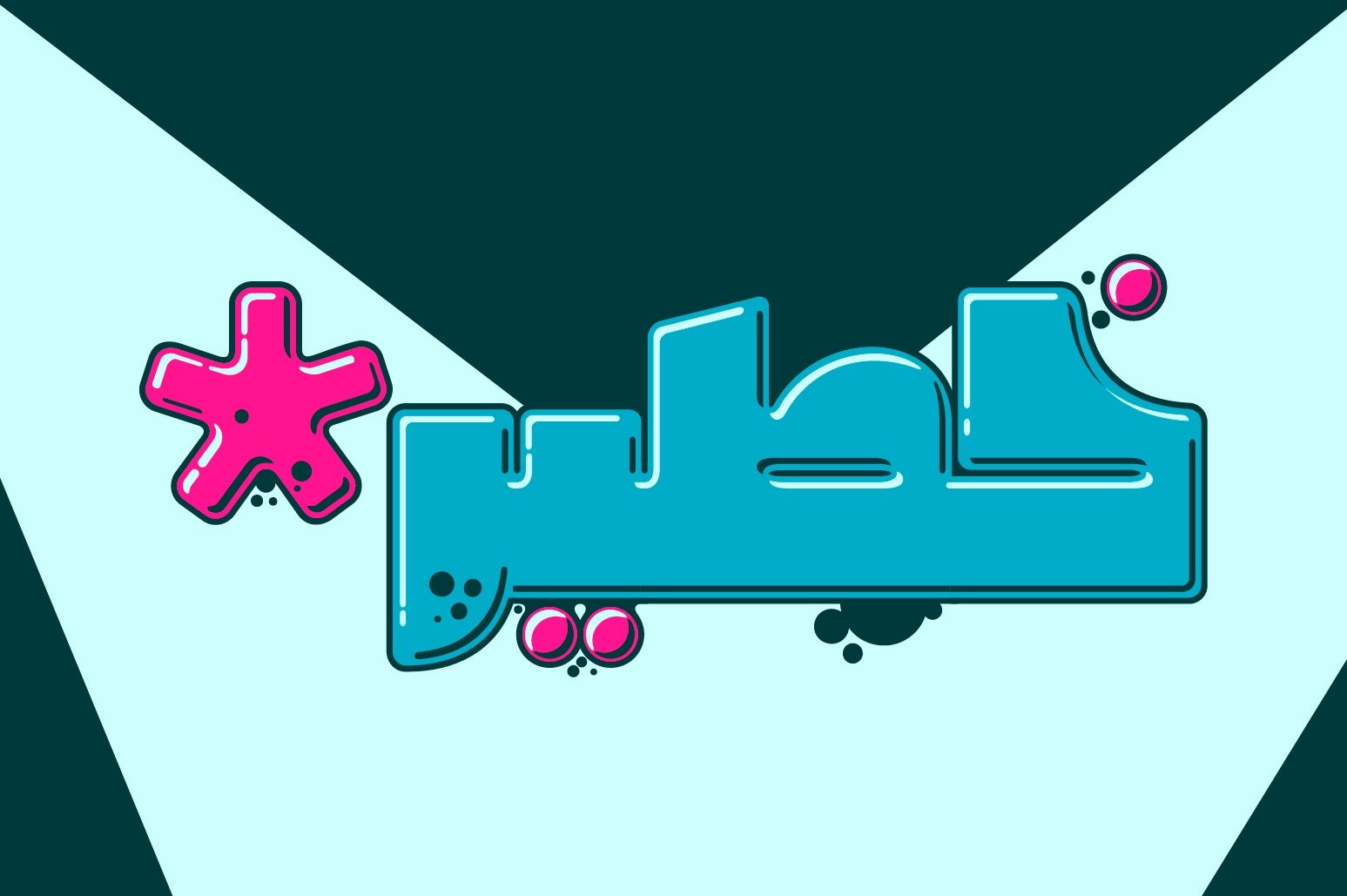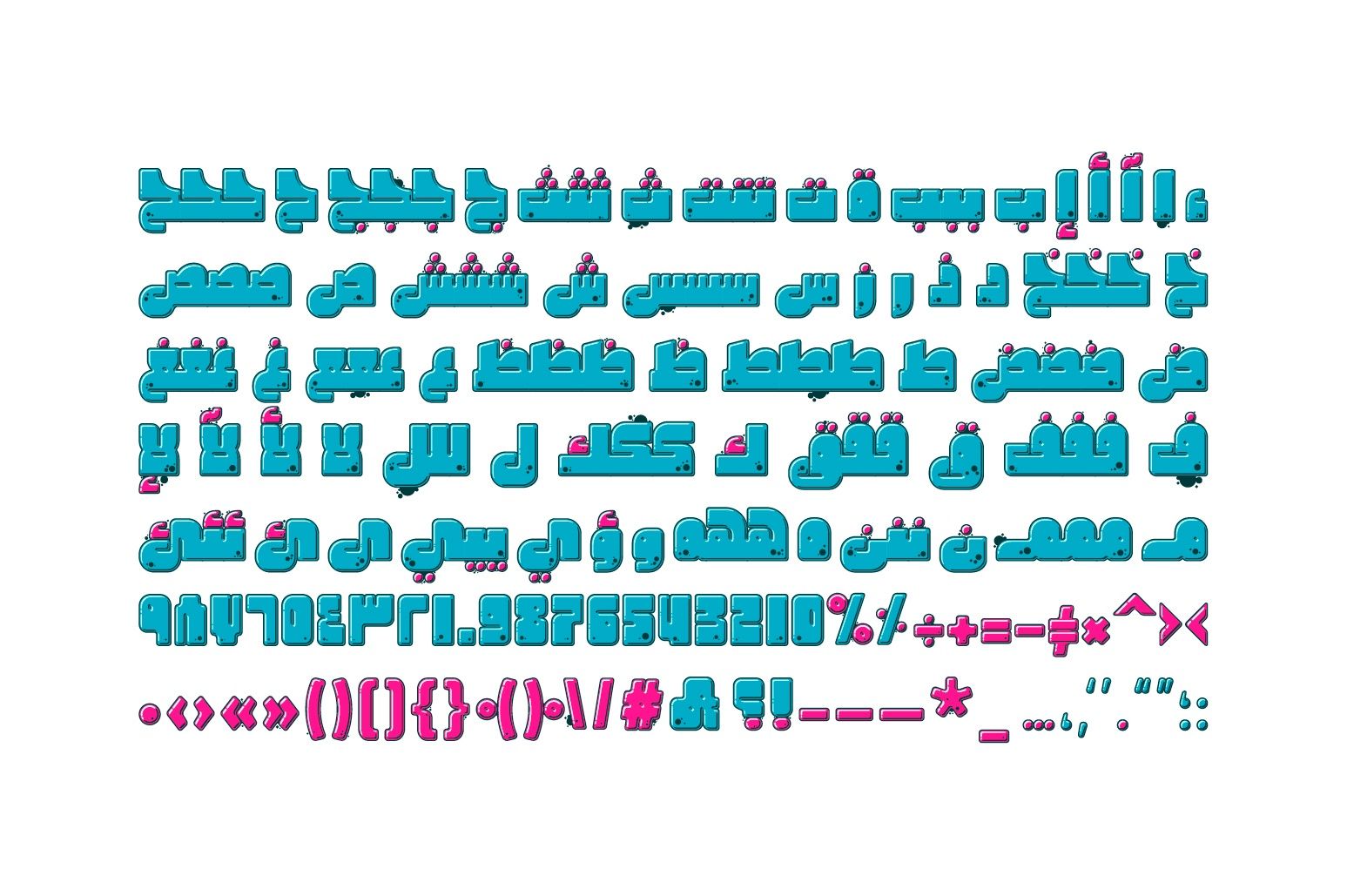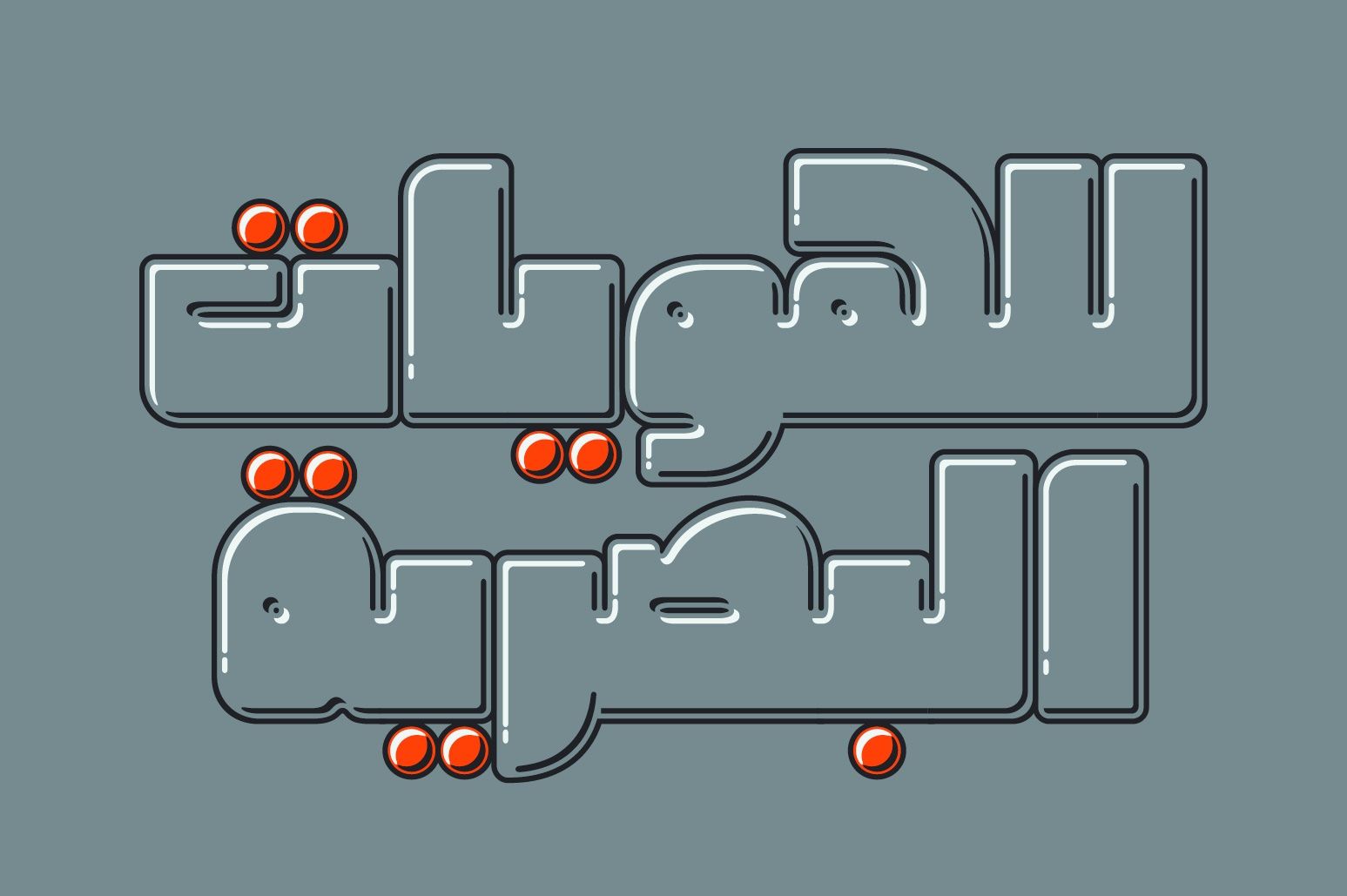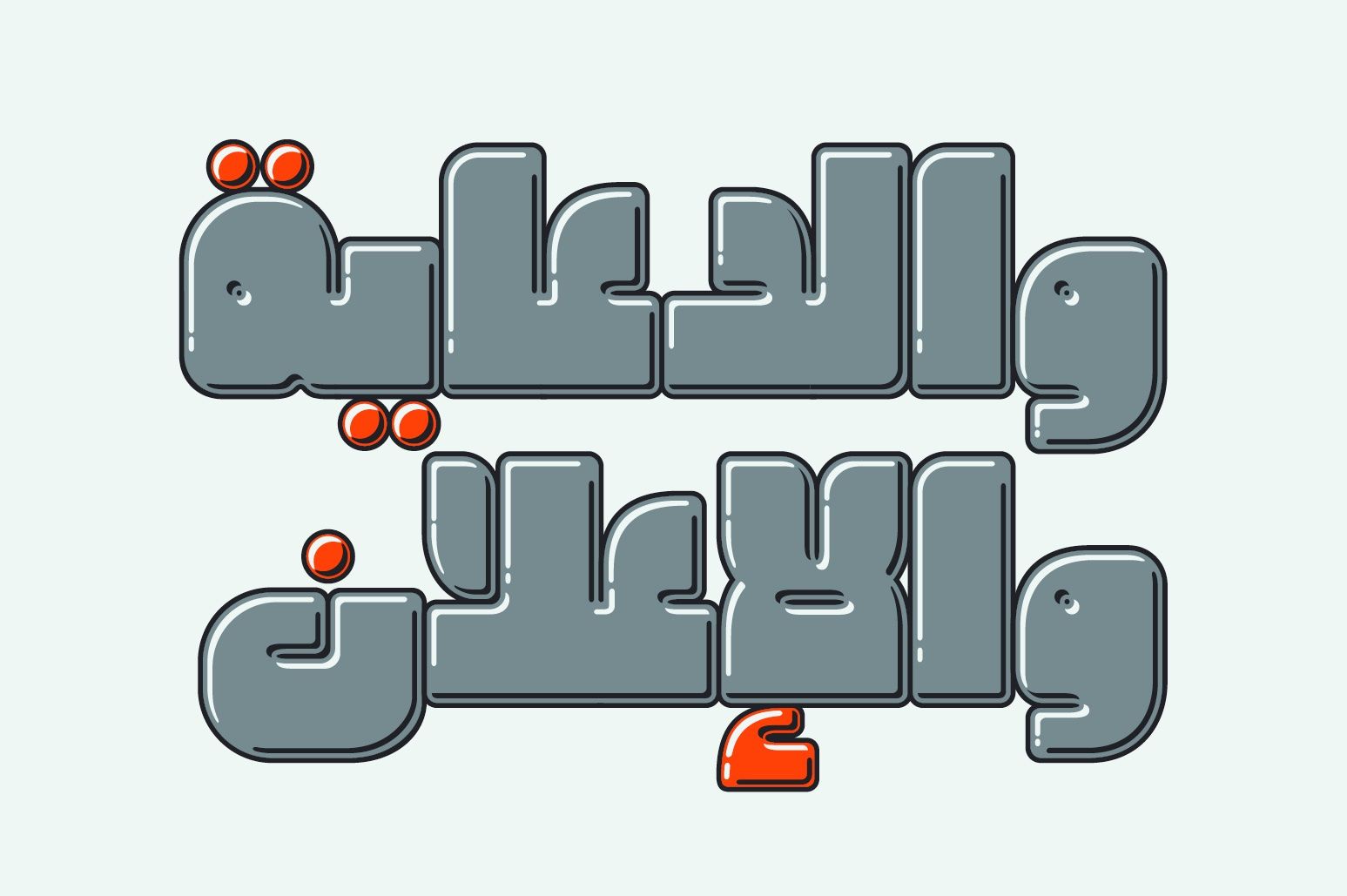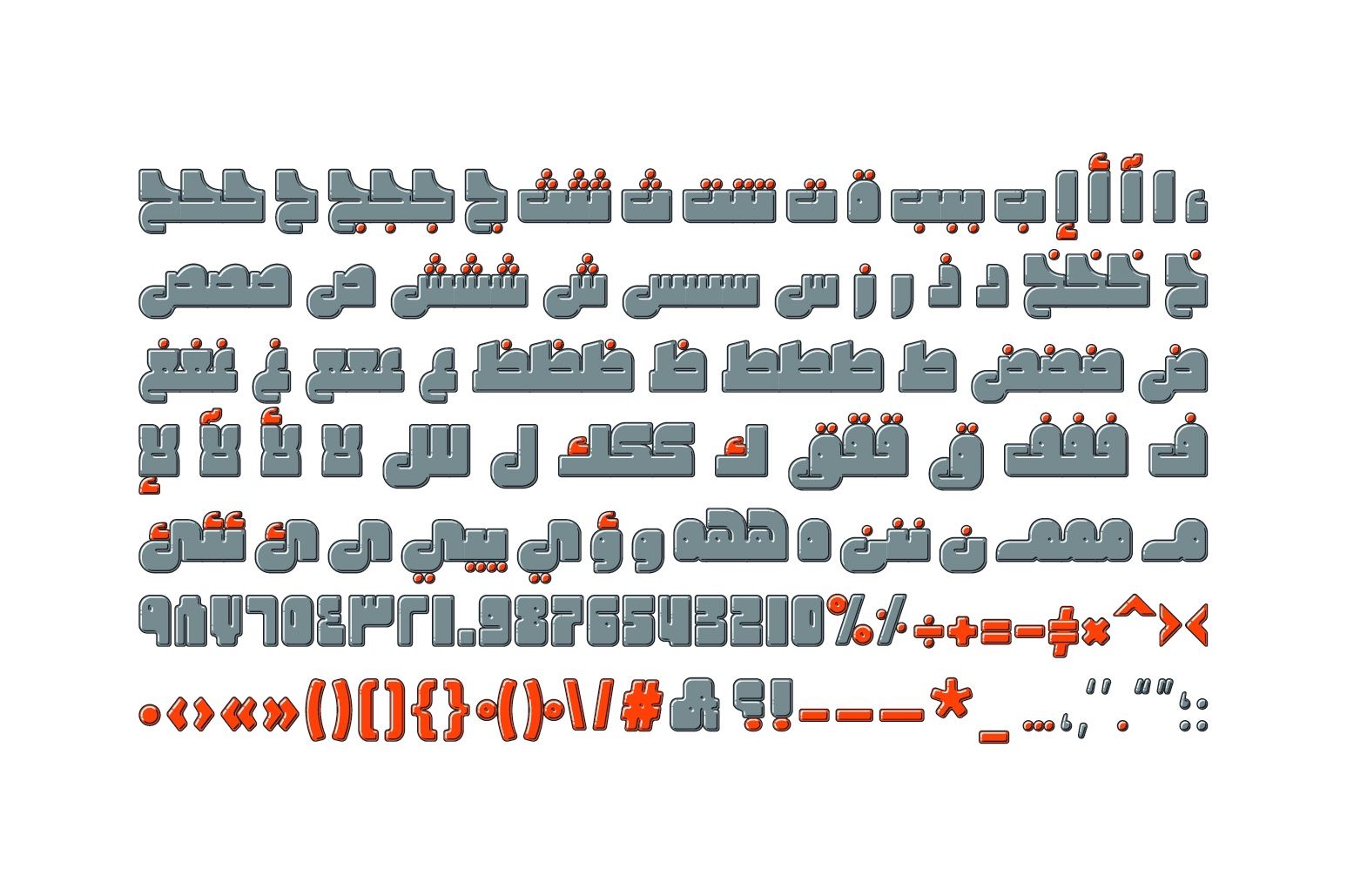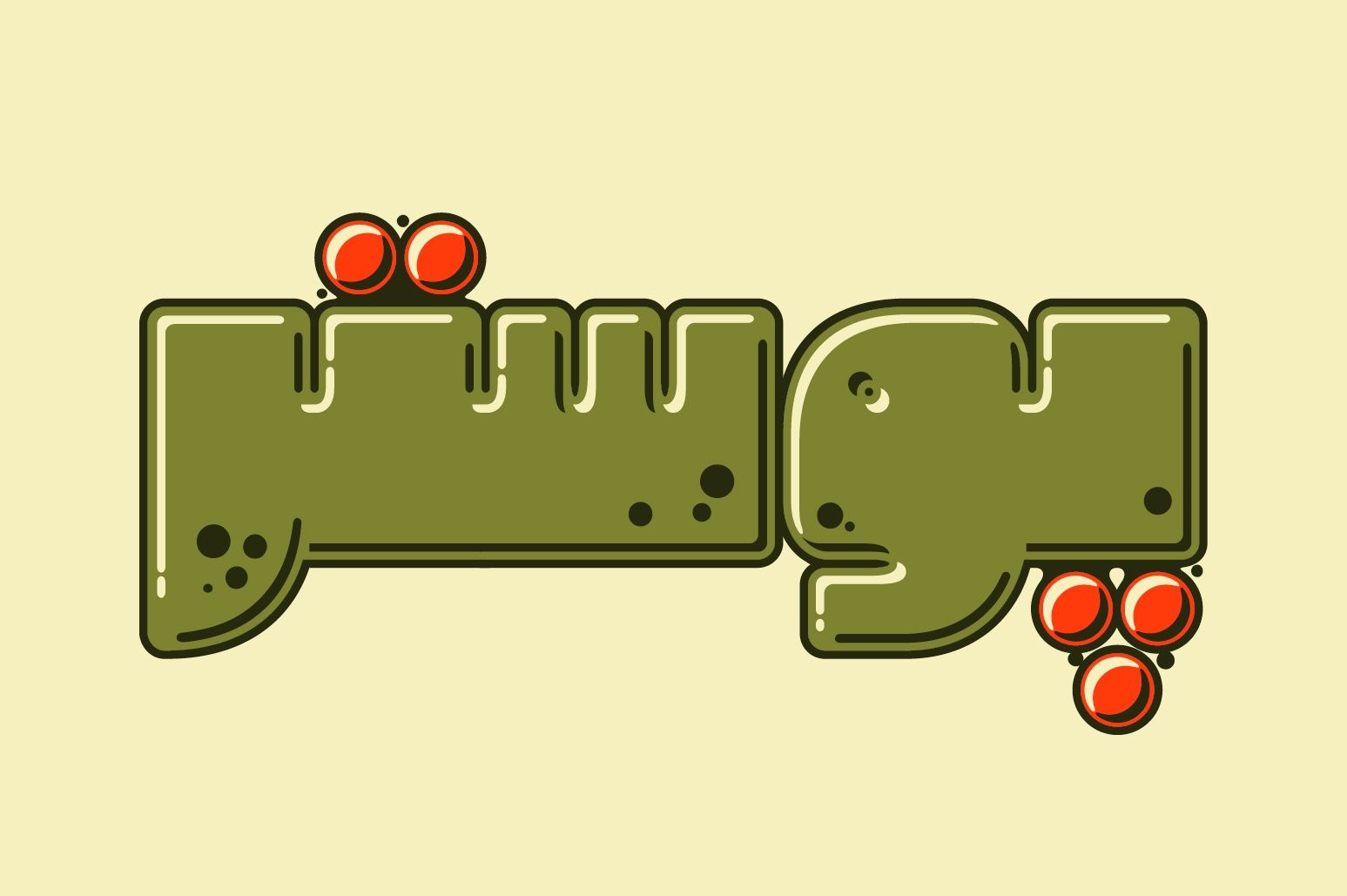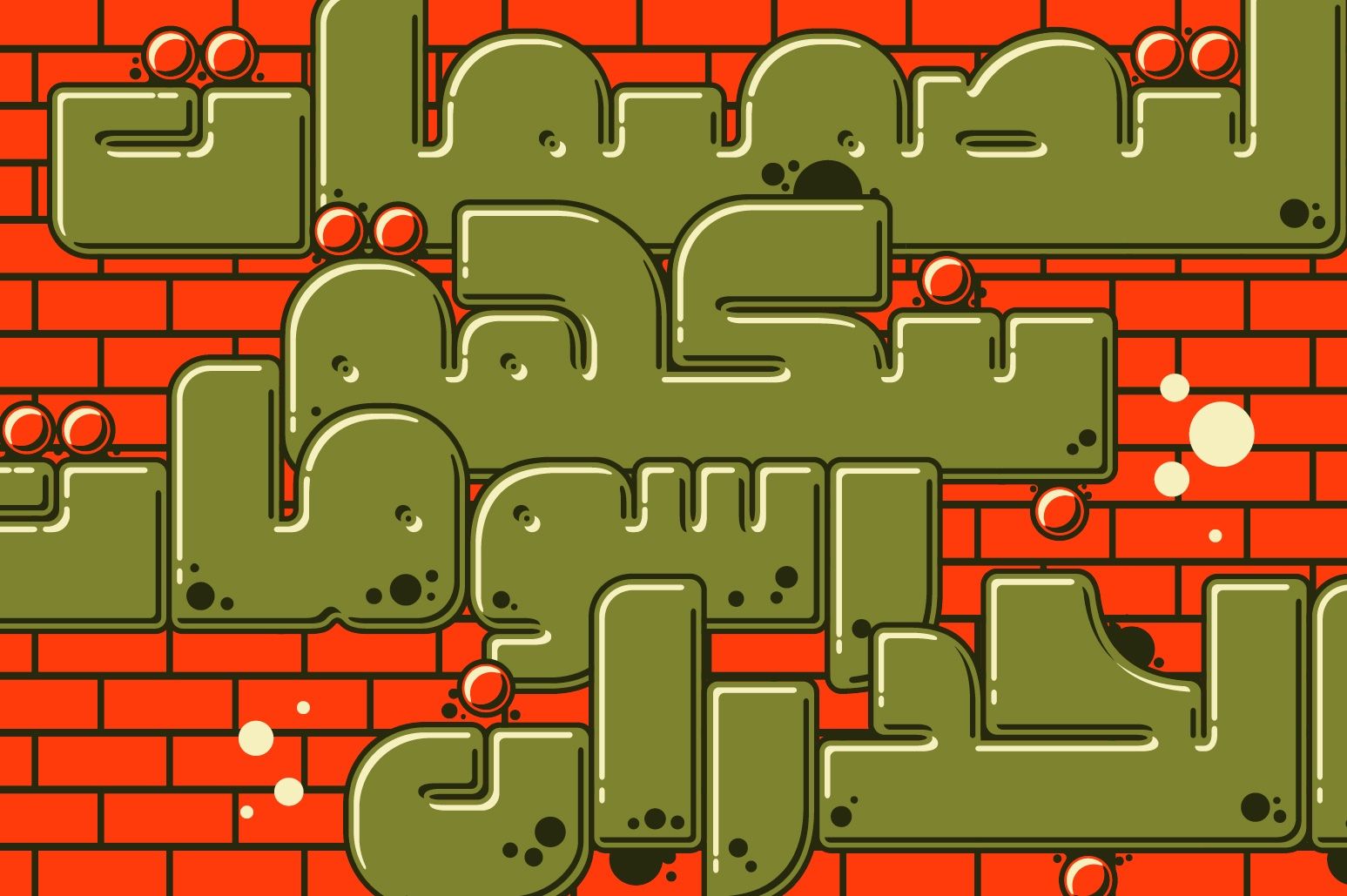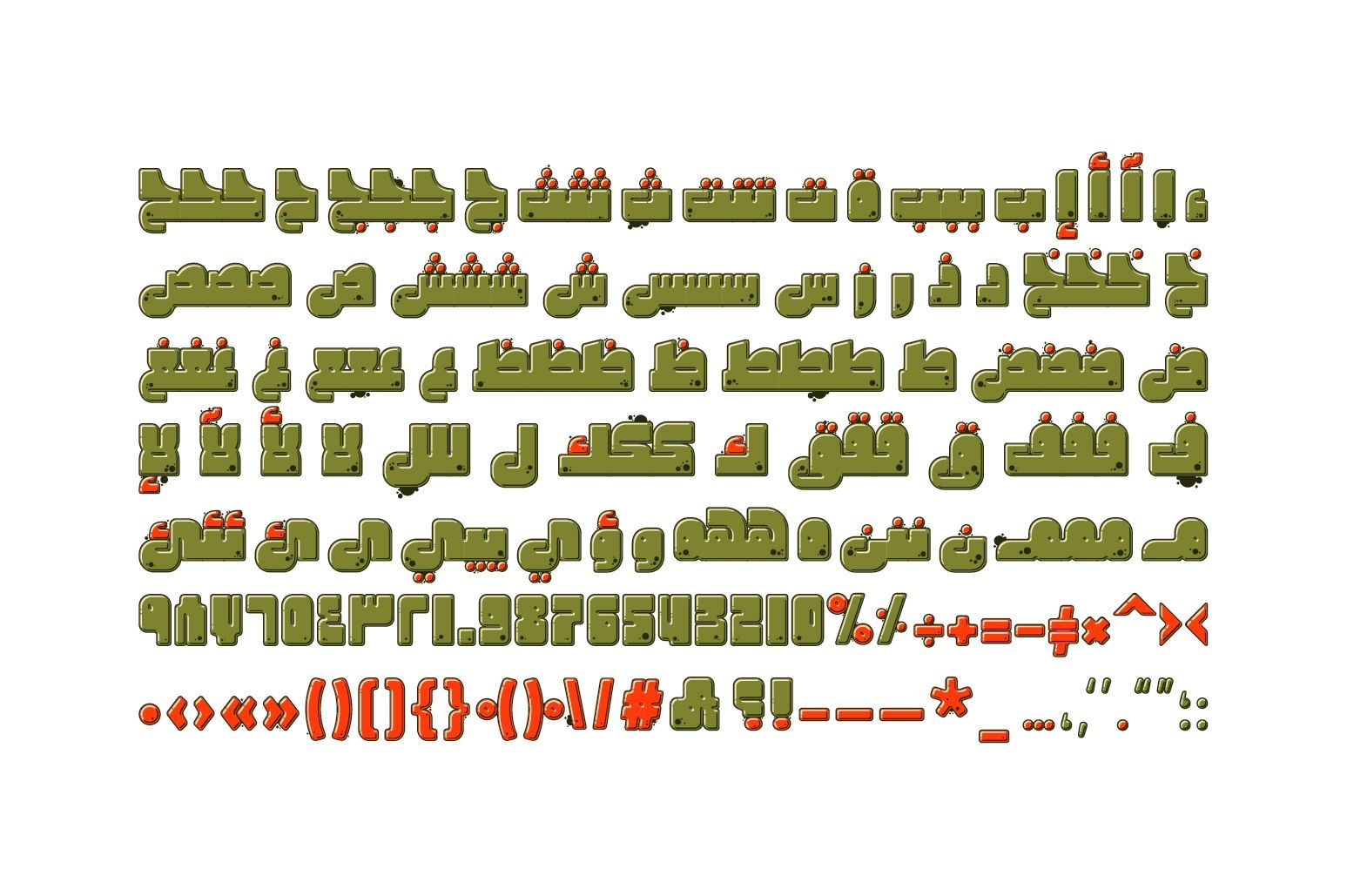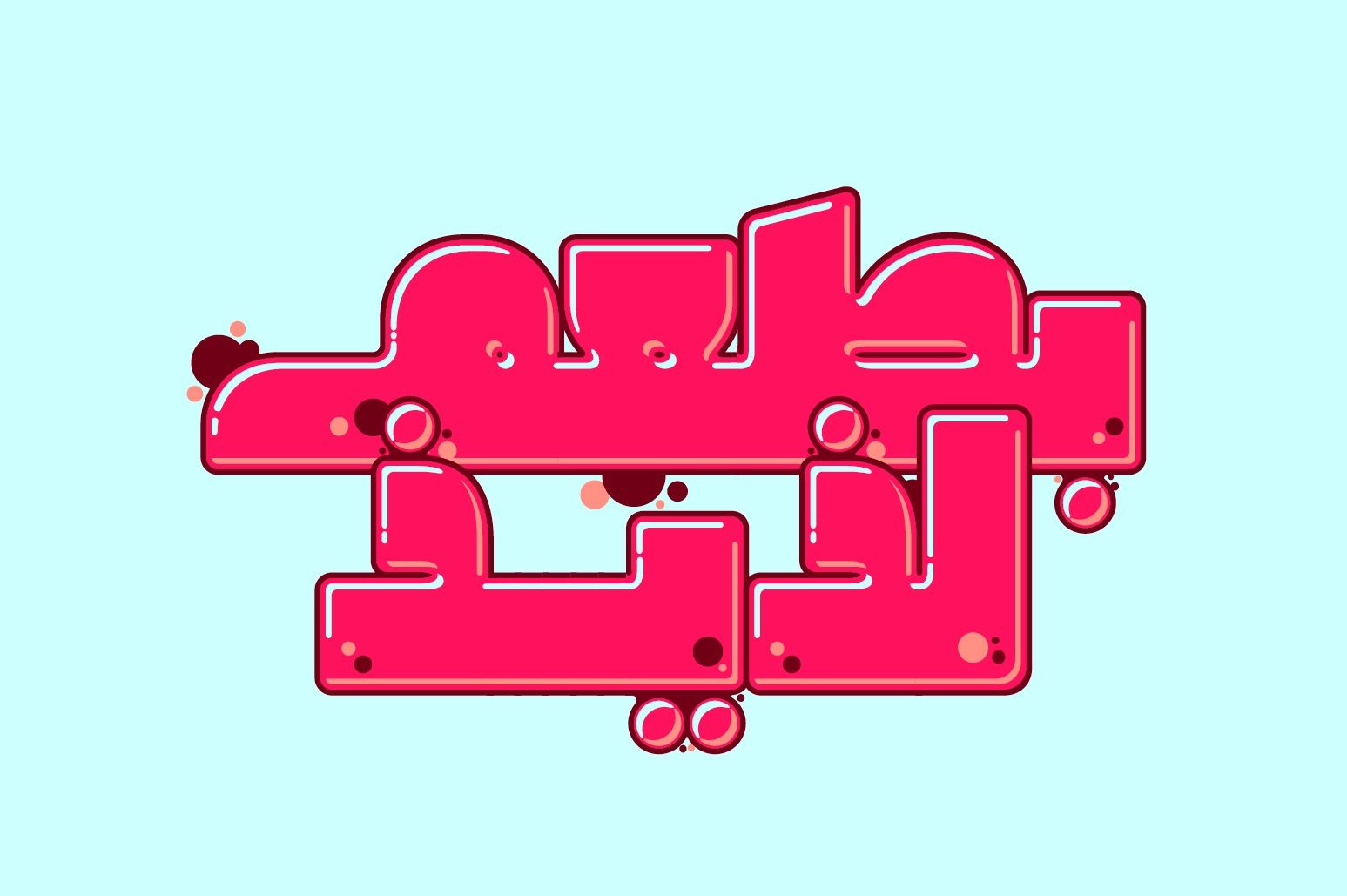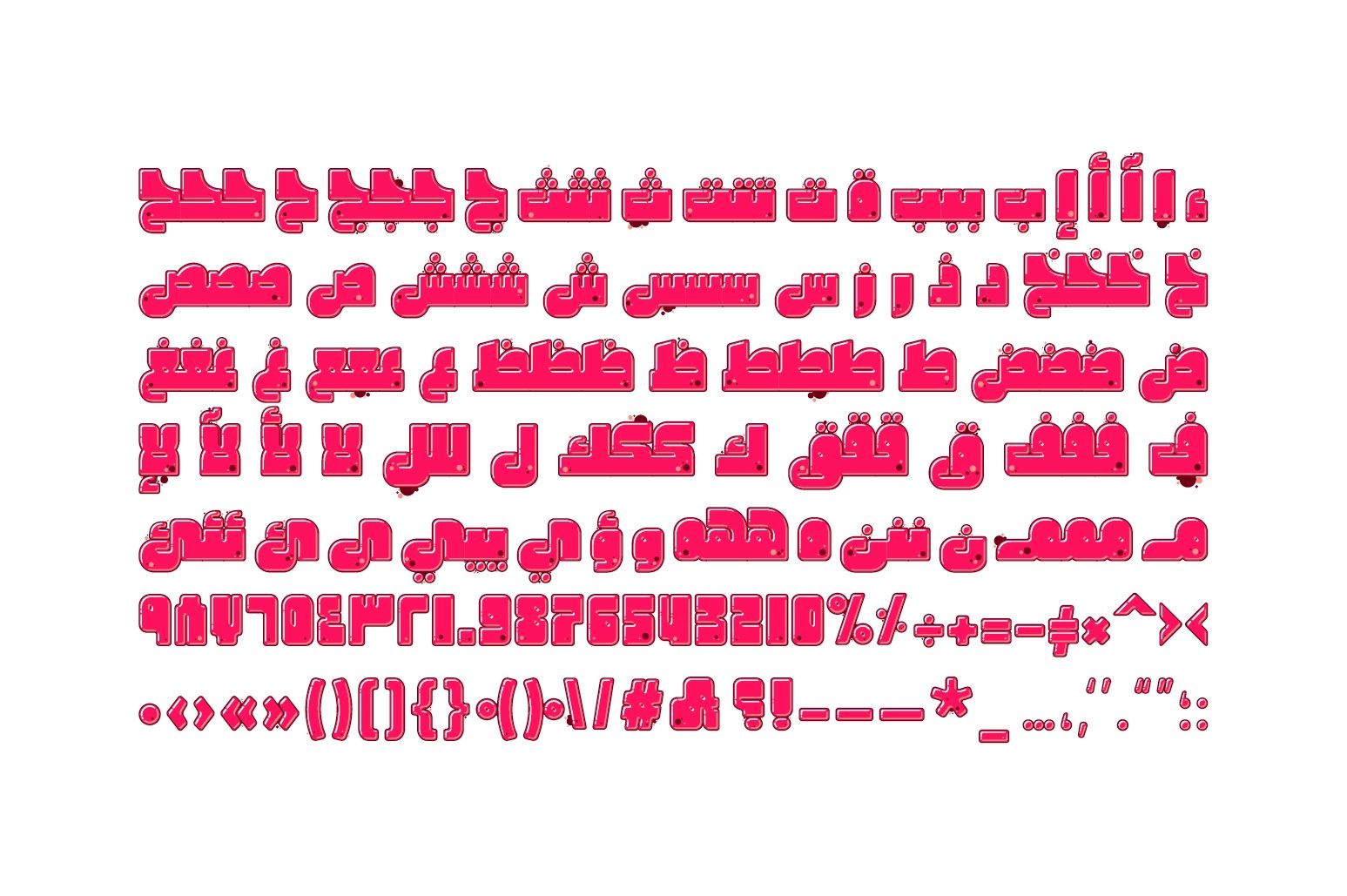
Graffitica is an Arabic display font inspired by street art and infused with graffiti energy. It is an OpenType-SVG typeface available in two vector formats (SVG‑TTF and COLR‑TTF), as well as a raster format (SBIX). The Graffitica font family includes four styles, each featuring its own color palette, and is suitable for web, print, and mobile applications.